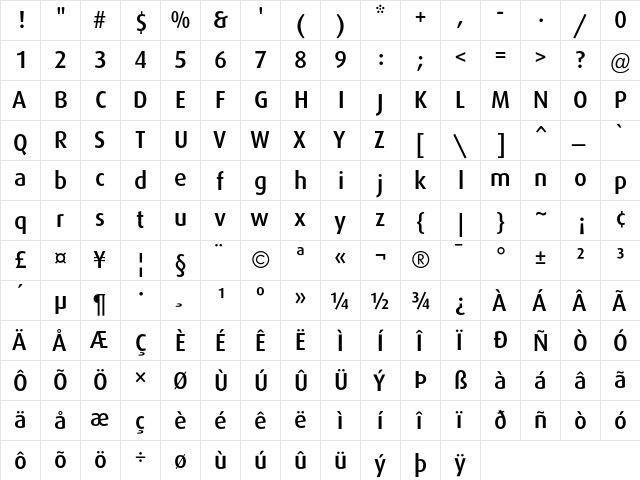
Dax Medium
Design Context for Dax Typeface
Dax is a composed and adaptable typeface that performs quietly and consistently across a wide range of design contexts.